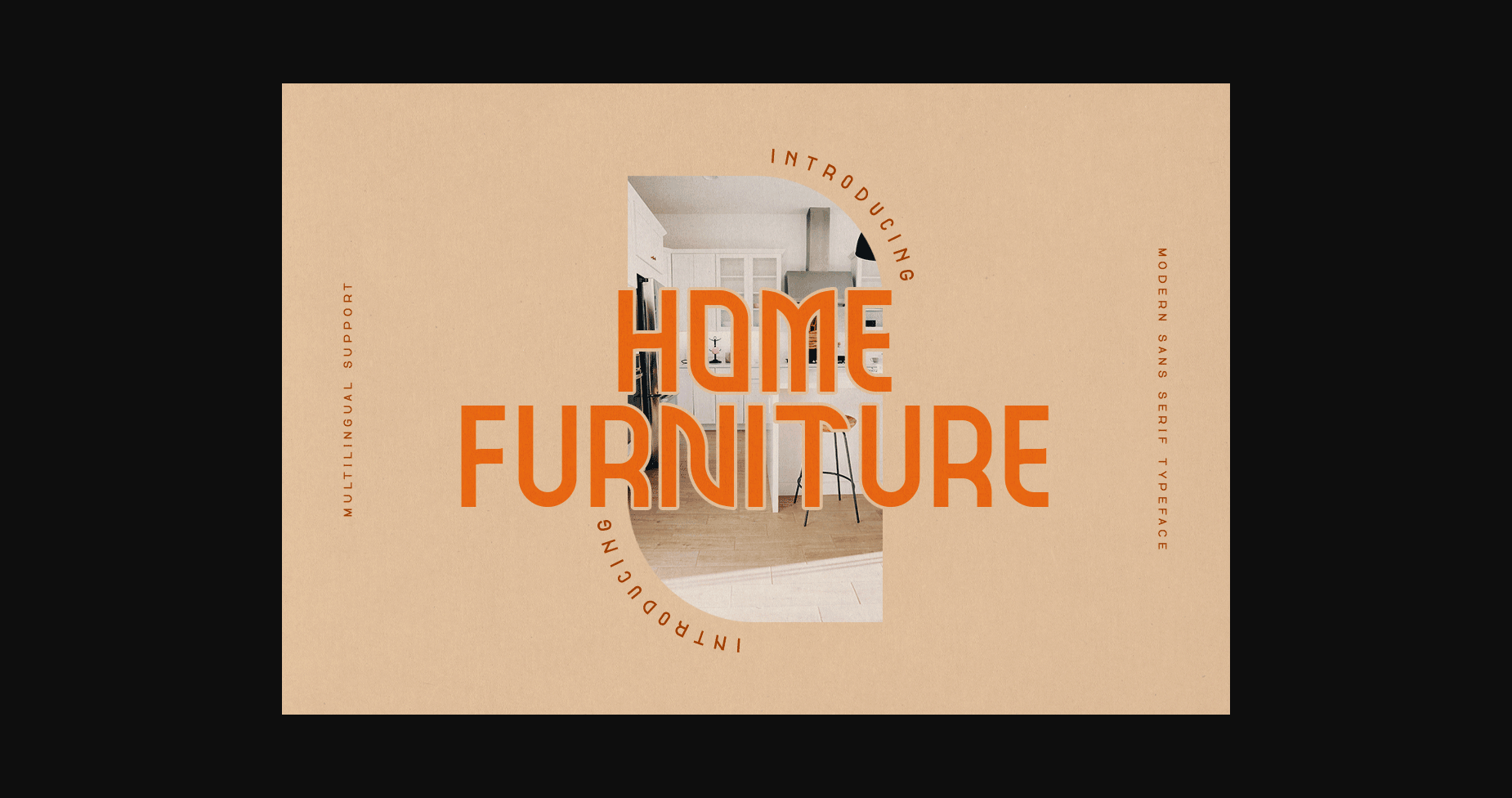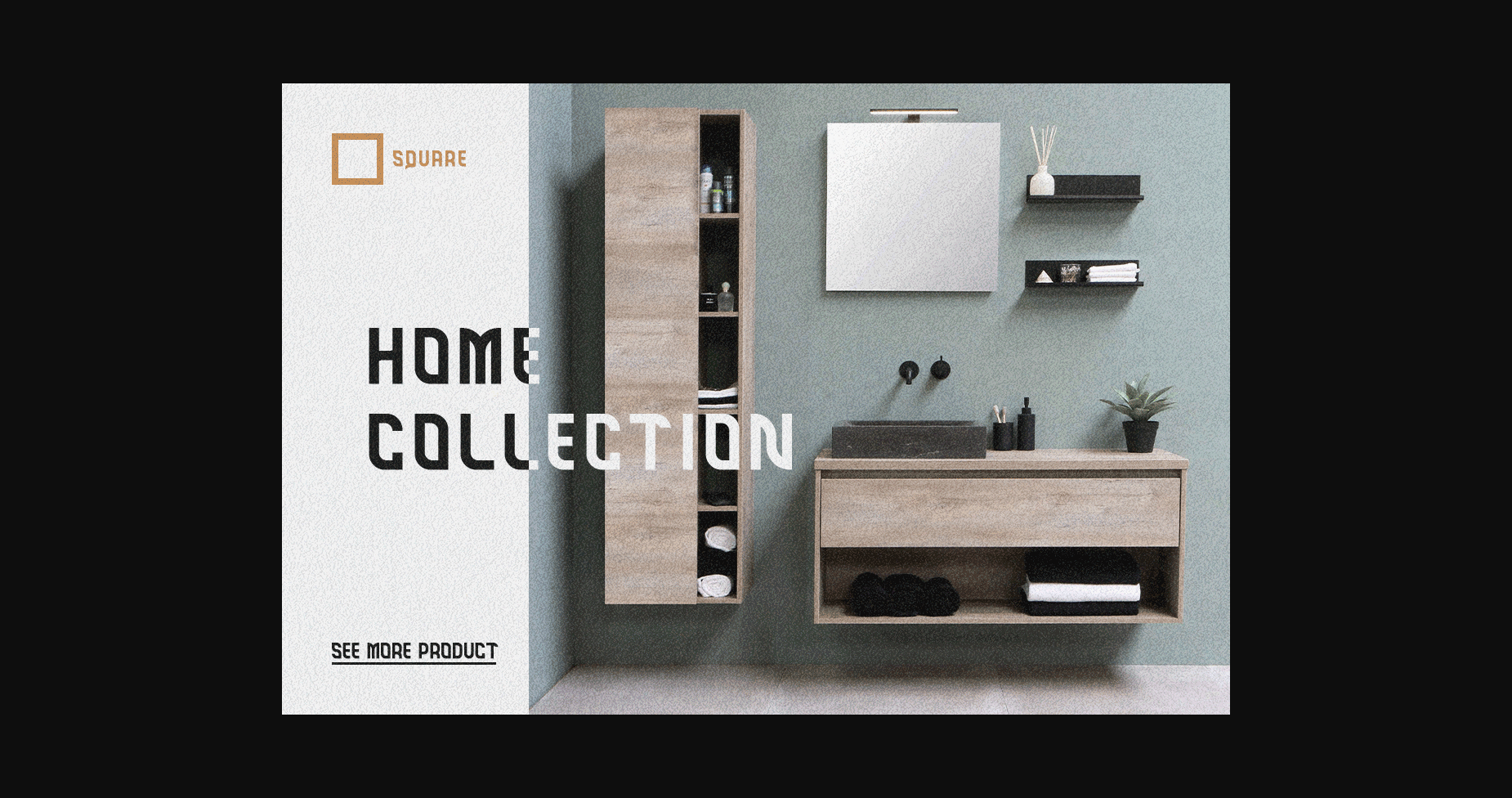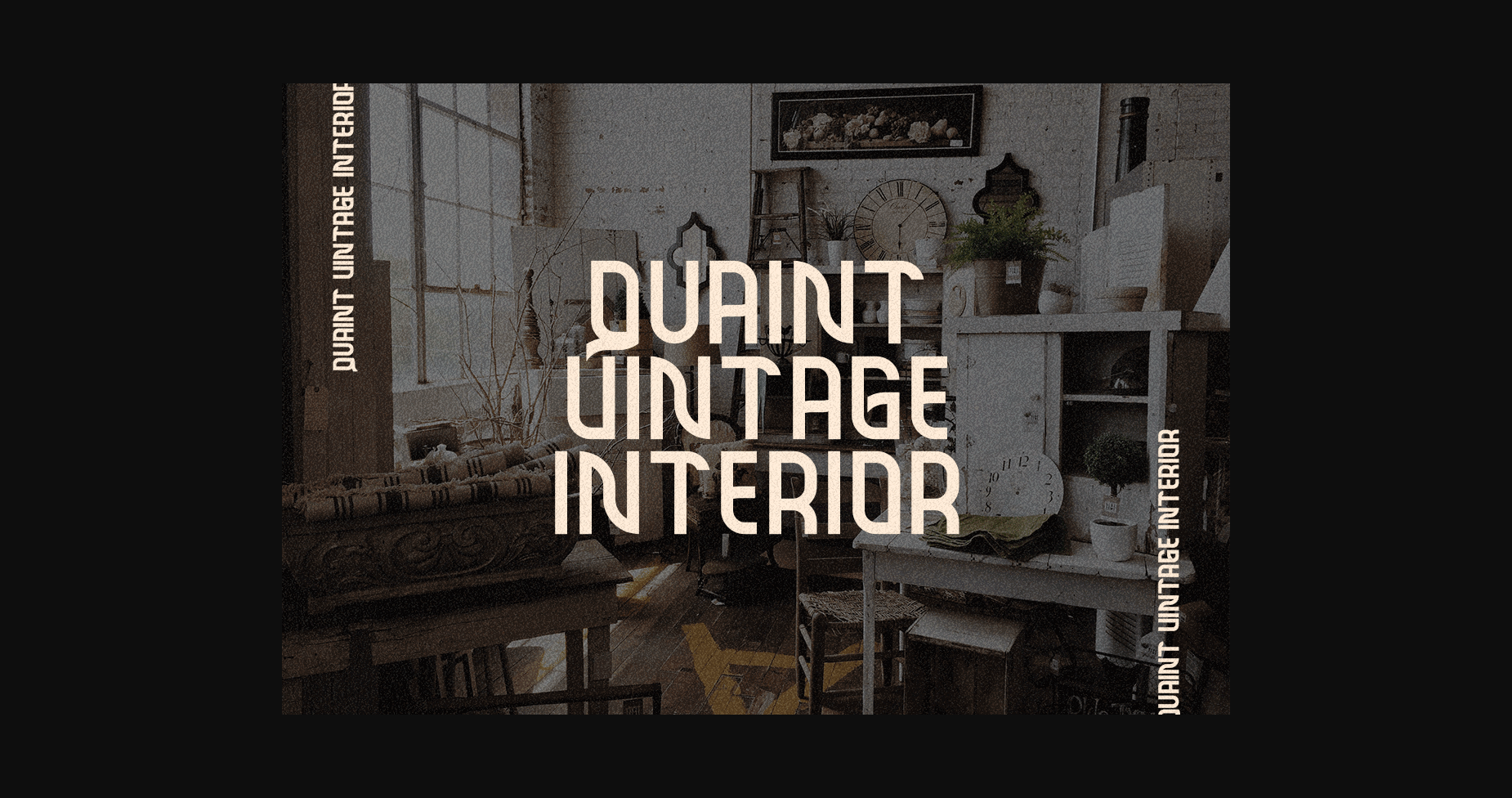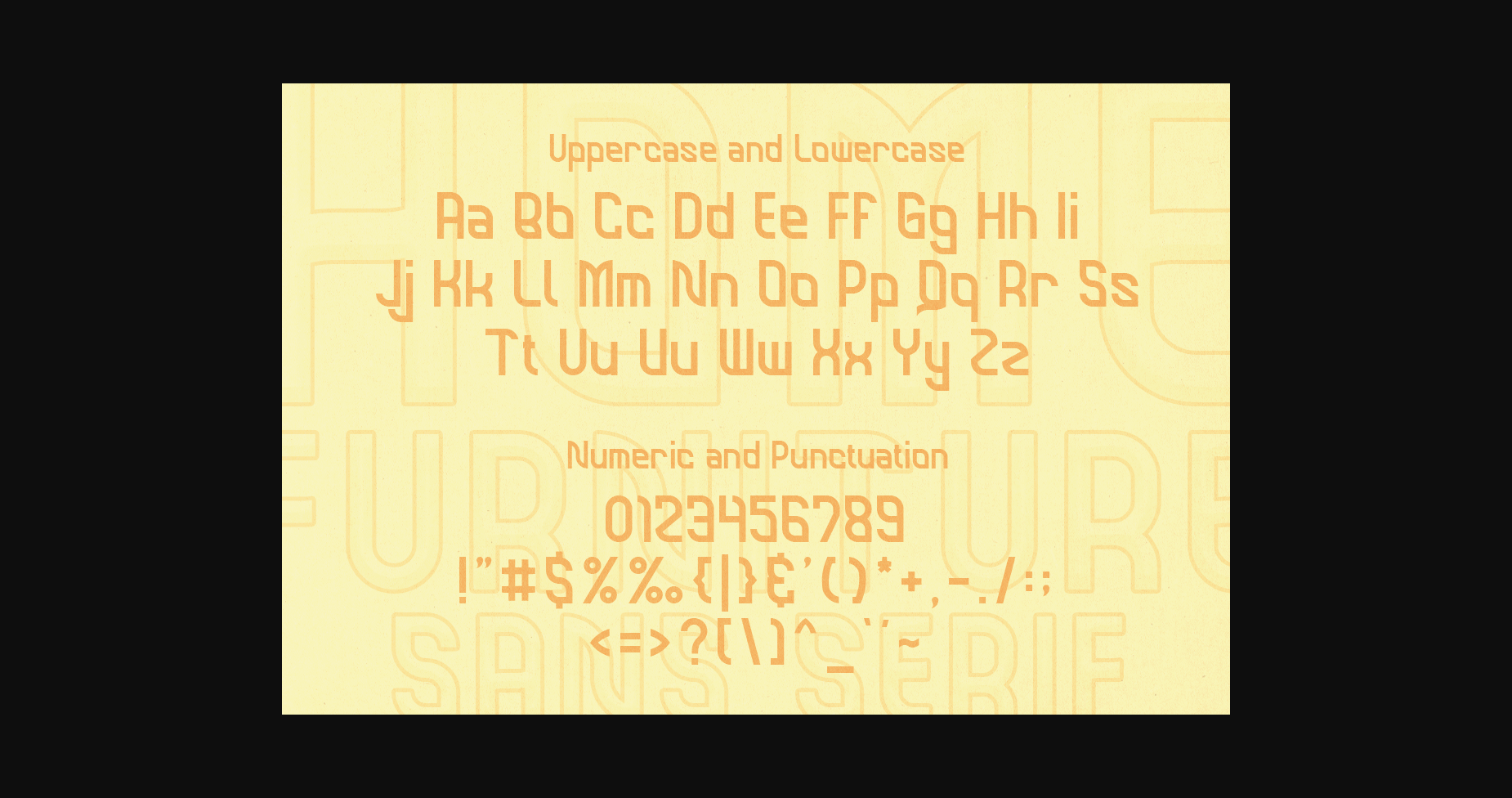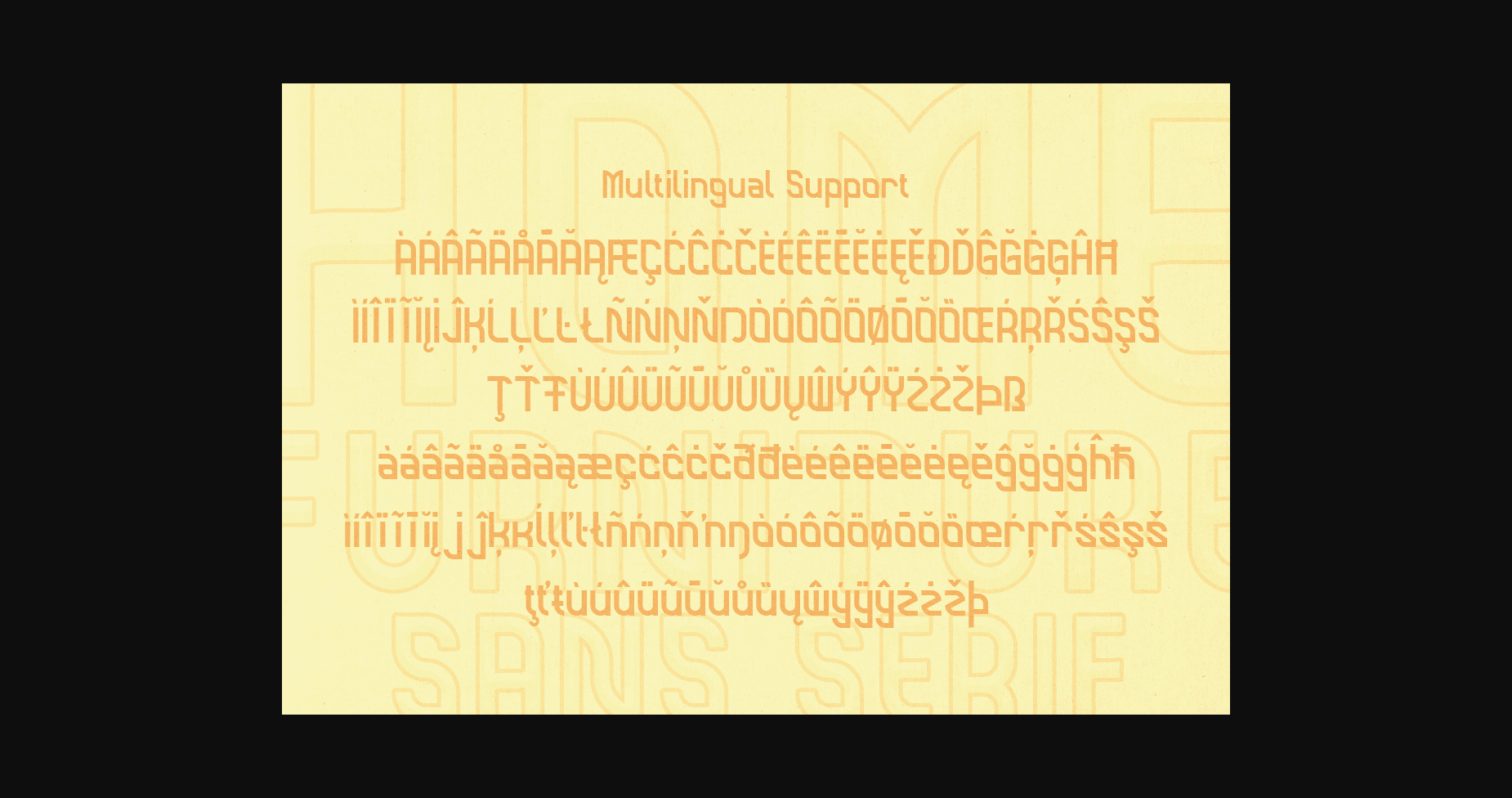
Home Furniture Font
About Home Furniture Font
Home Furniture Font is a modern sans-serif font. This font is suitable for branding, headlines, logos brand furniture, websites furniture shop, invitations, magazine covers, music covers, billboards, and others.